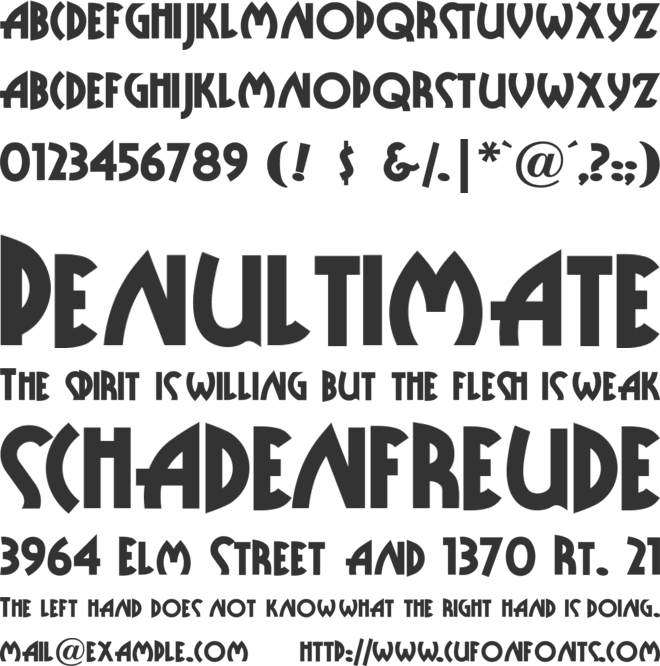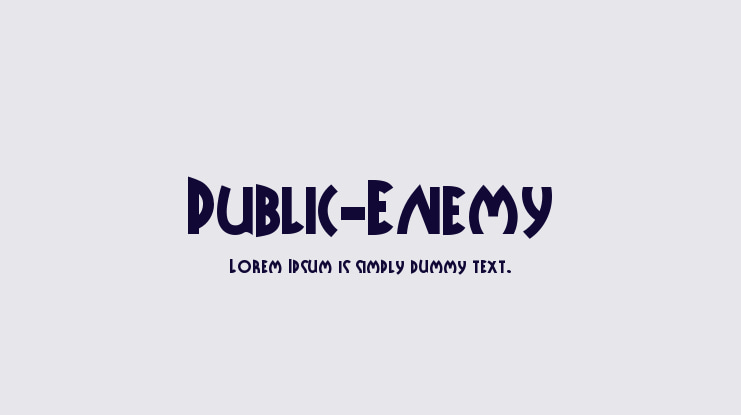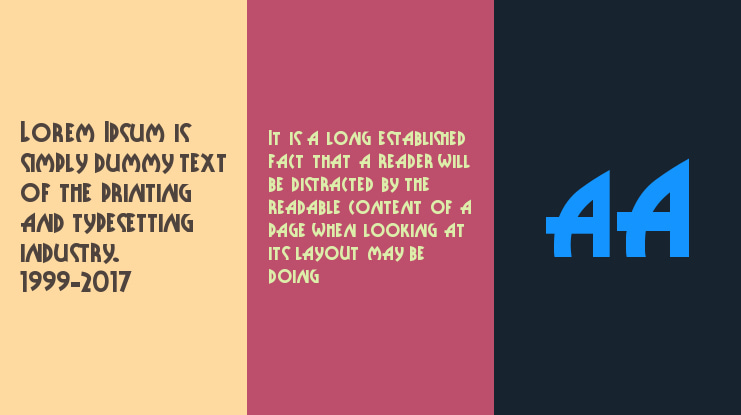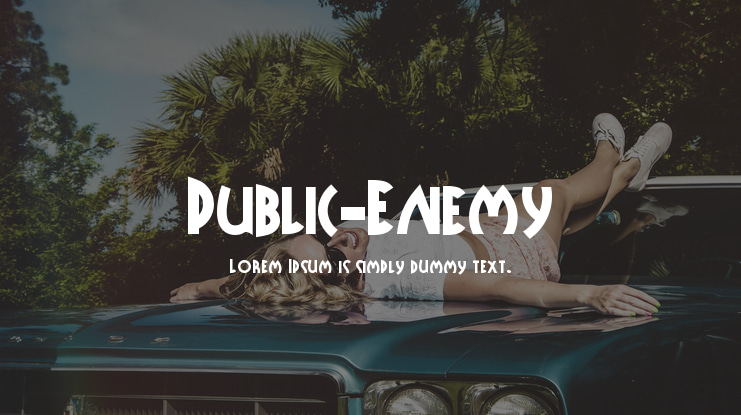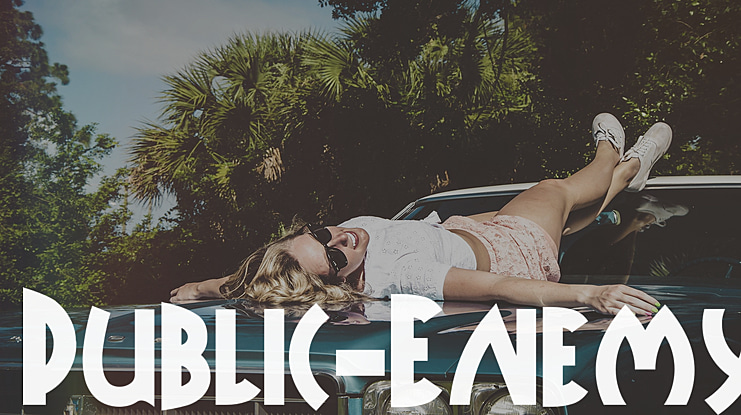
Public-Enemy Font
Based on the lettering used on a poster for the 1931 Jimmy Cagney ganster classic of the same name (the one where he gives Mae Murray a grapefruit facial). Armed and Dangerous, and a lotta fun.